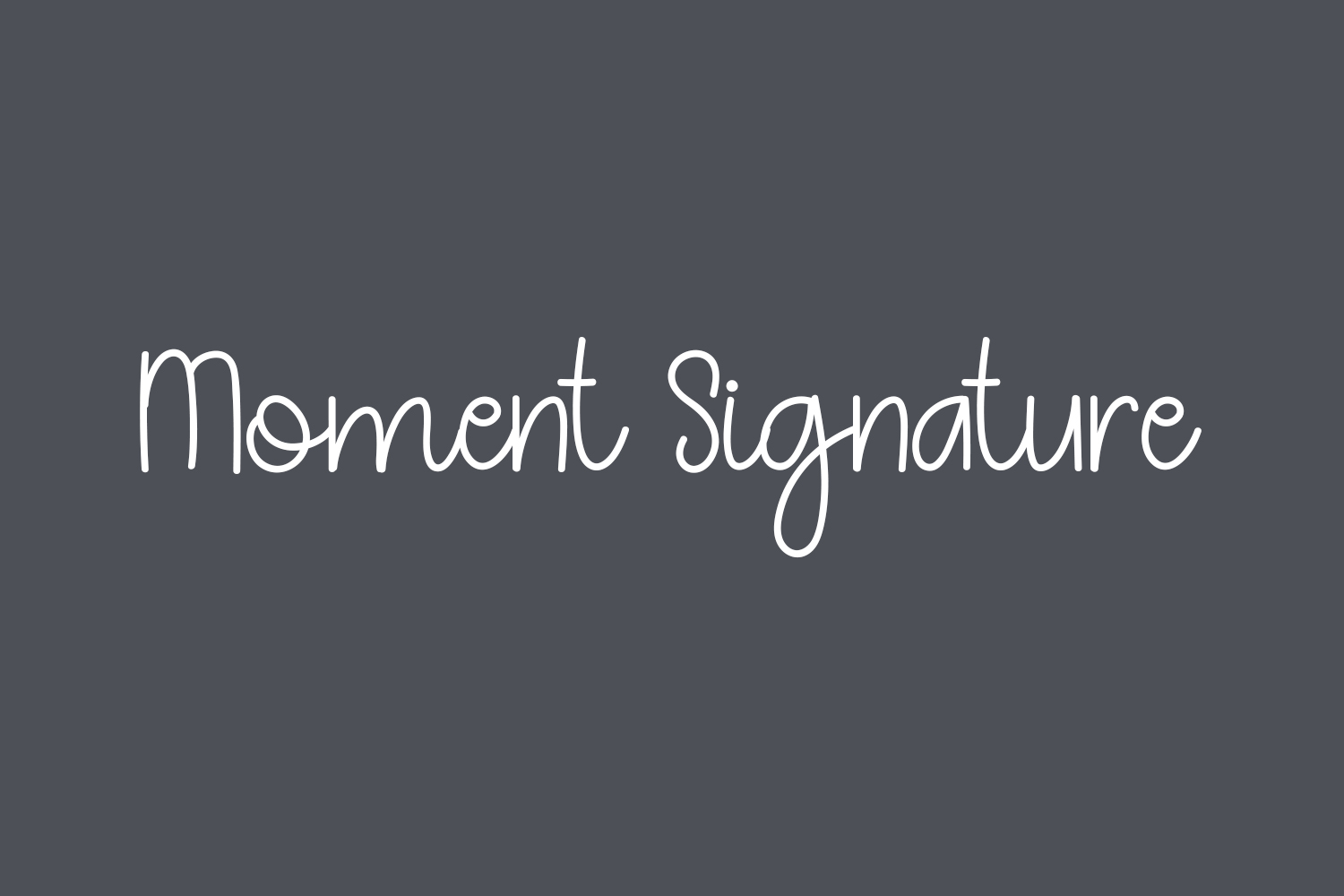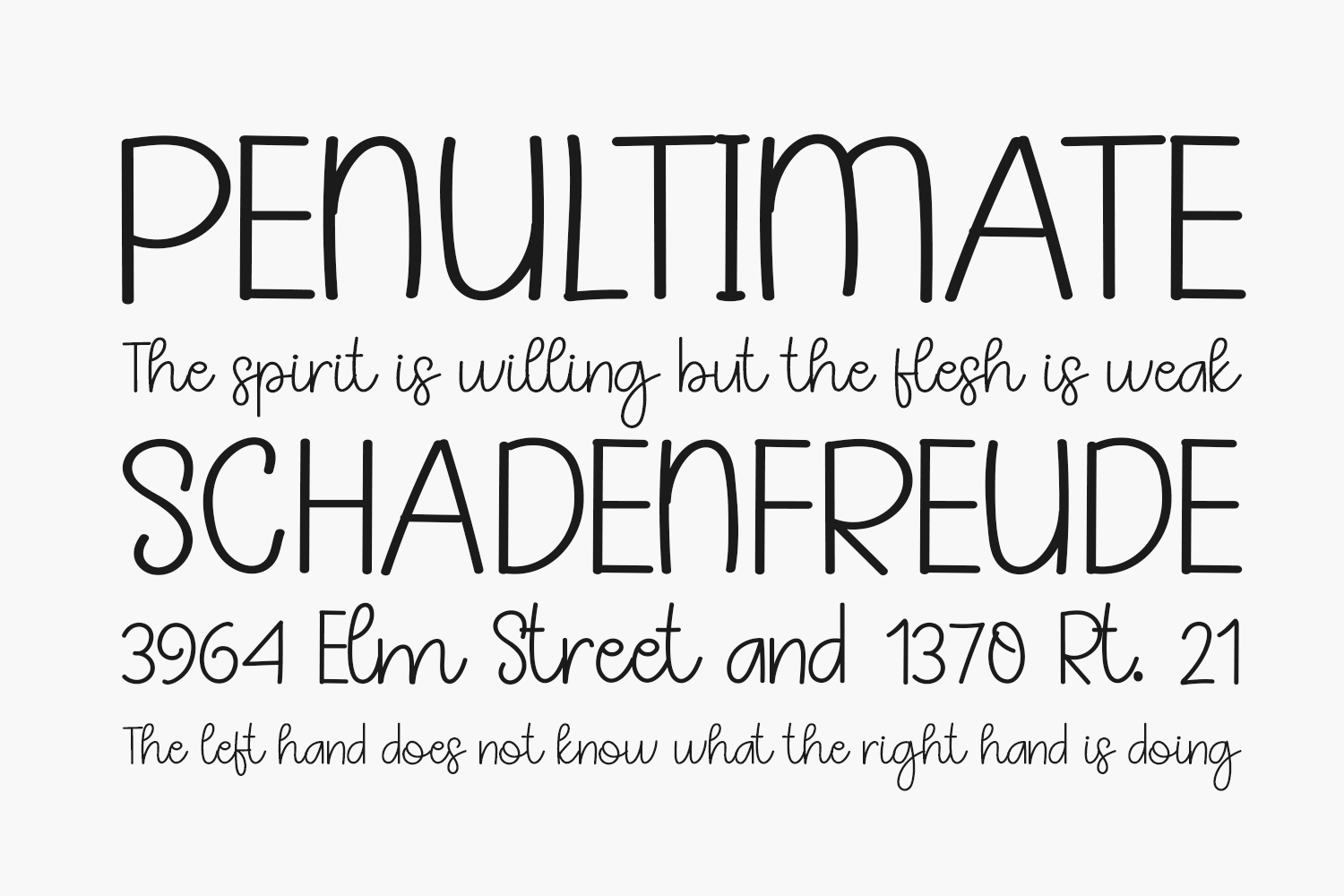
Moment Signature Free Font is a delicate and fashionable script font. It is perfect for any branding project such as logos, t-shirt printing, creative products, and more. It will look extraordinary in a variety of contexts. Moment Signature Free Font is free for personal use only. Please purchase the full version for commercial use.